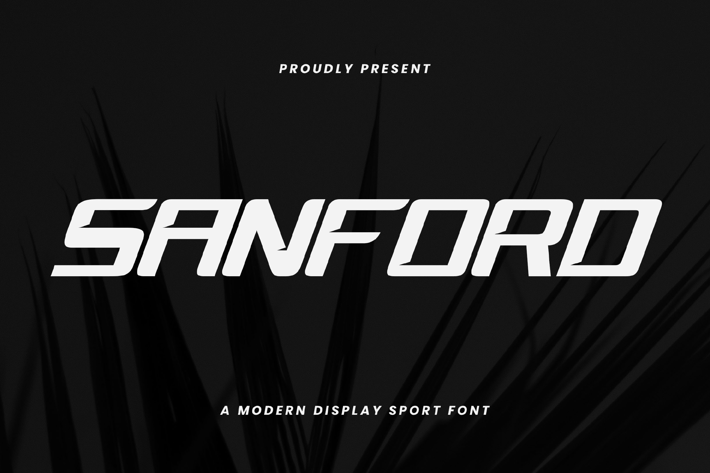
Sanford Sport Display Font
Introducing "Sanford" - A Modern Display Sport Font. This font is suitable for any graphic design such as branding materials, t-shirts, prints, business cards, logos, poster, photography, quotes .etc
Sanford is the ultimate choice for designers seeking a bold and contemporary display font to make a lasting impact. Inspired by the dynamic energy of sports, this font exudes power, strength, and a sense of movement, making it the perfect addition to any sports-related project or design that demands attention. This font is suitable for tattoos, branding, business, logos, magazines, and others.